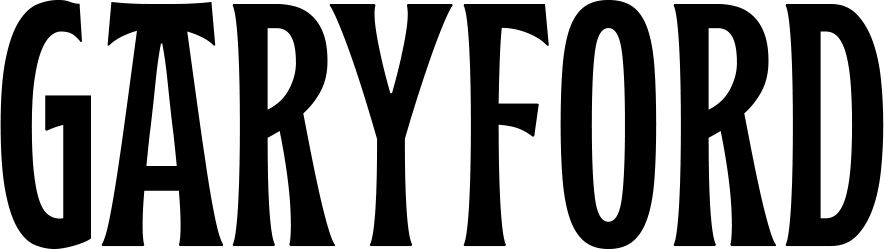
Garyford Font
Utilize this Garyford font for the most interesting typography that has a vintage feel. The bold characters of this serif-style retro font are informal, playful, sociable, and tall. The influence they have will create your powerful typography!
The letterforms offered by Garyford are capitalized A to Z alphabets, a full set of numbers, and punctuations, but lowercase letters are not available. Consider this retro font valuable for signage, banners, number plates, stickers, and wherever you feel it’s necessary.